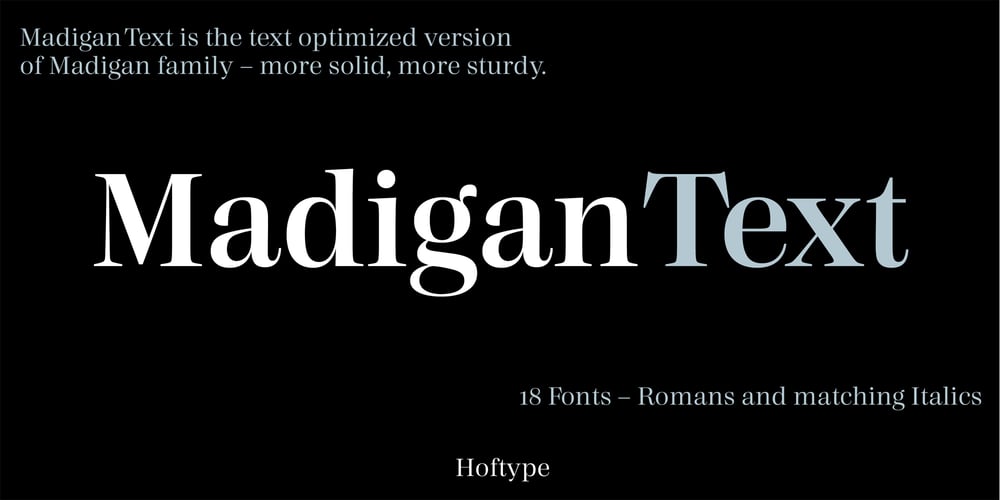
Madigan Text
Madigan Text font
Madigan Text Font Family was designed by Dieter Hofrichter and published by Hoftype. Madigan Text contains 18 styles and family package options. Madigan Text is the text optimized version of the Madigan family. More solid, more robust, it repesents the more stabil version to the more delicate Contane family. Stronger hairlines, solid serifs, and slightly wider proportions make it appropriate for bold headlines, as well as for small text sizes.Madigan supports up to 80 languages and it’s OpenType format allows a wide range of typographic applications. 18 styles offer fine graduation of the weights. All weights contain small caps, ligatures, superior characters, proportional lining figures, tabular lining figures, proportional old style figures, lining old style figures, matching currency symbols, fraction- and scientific numerals, matching arrows and alternate characters.